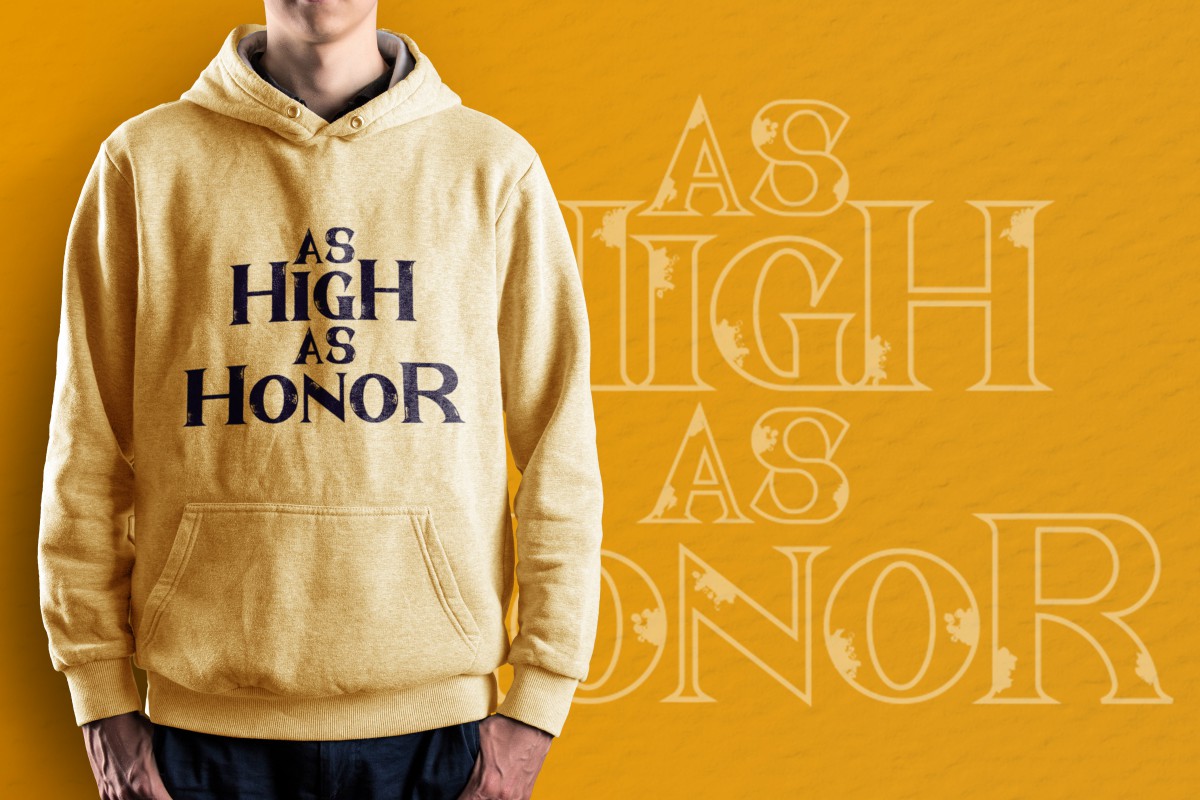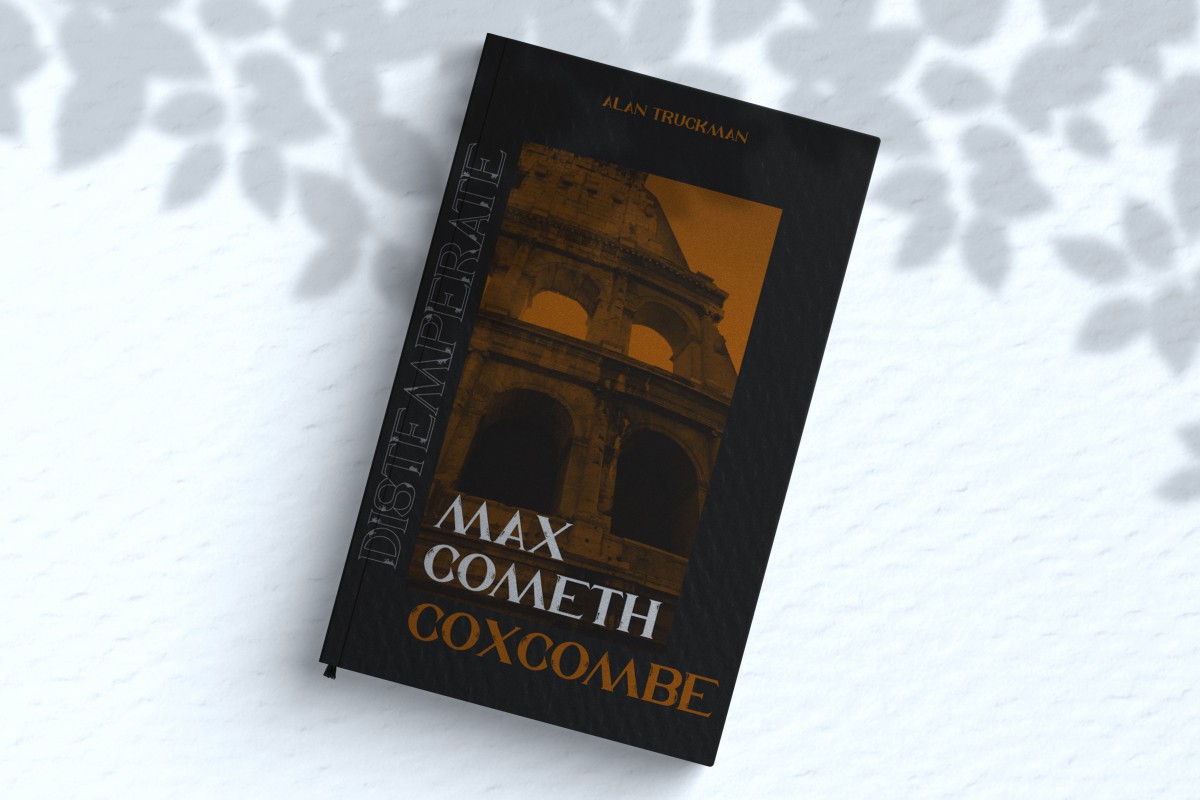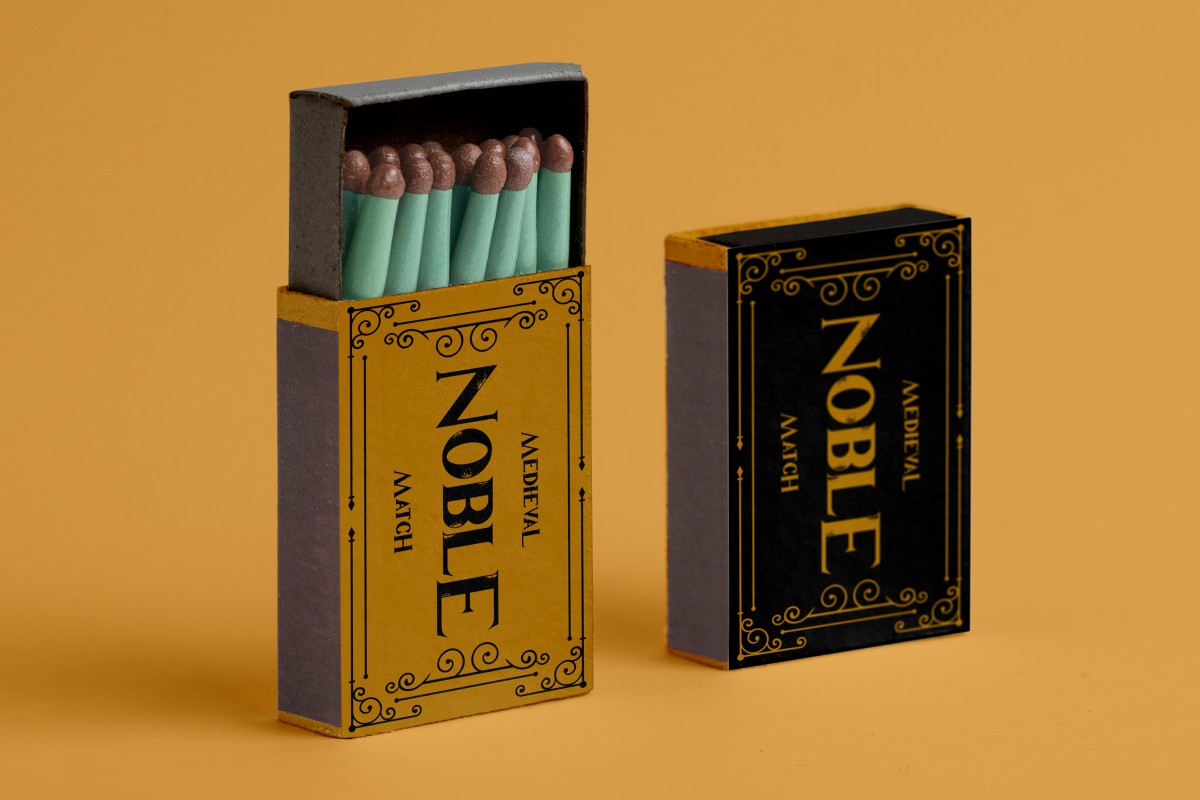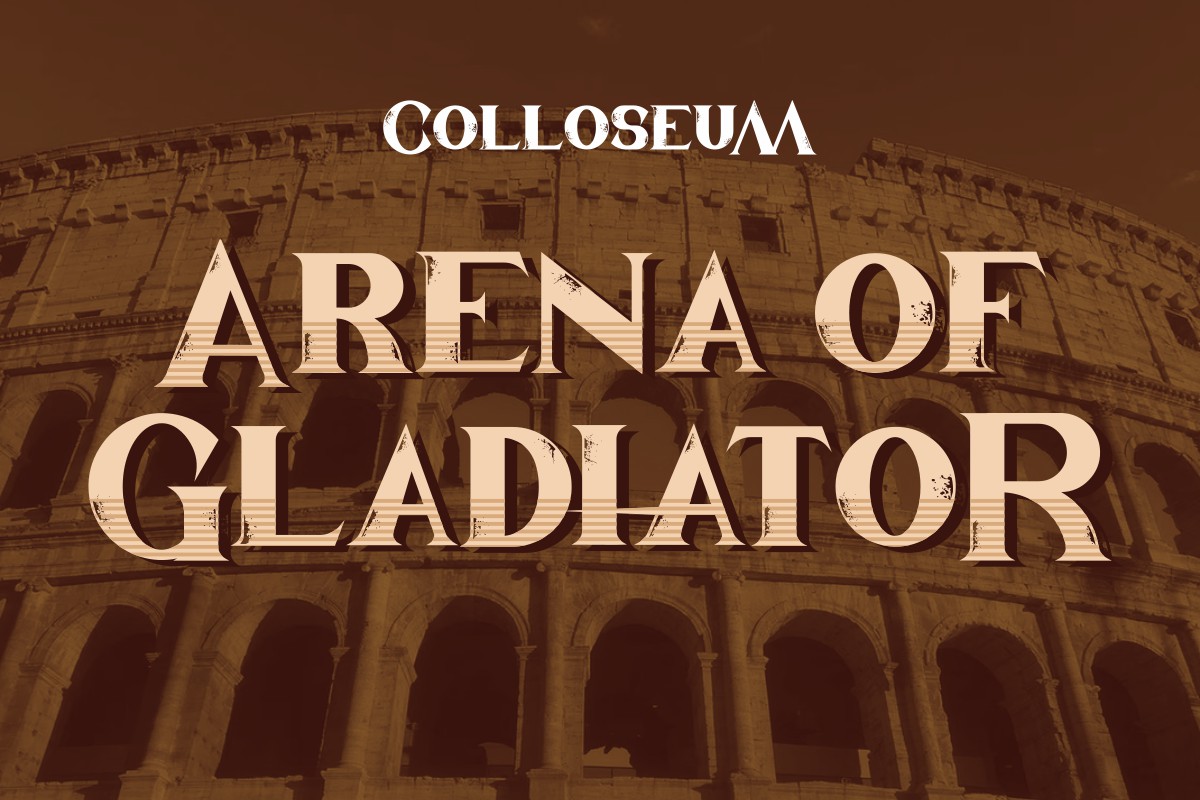
Gladiator Arena Font
Gladiator Arena Display Font
It’s a display serif font with textured effects inspired by the ancient roman fighting : gladiator. It has a bold and sharp edge making it perfect for titles on books and other written works, markings on tourist attractions, and those requiring a different serif style.